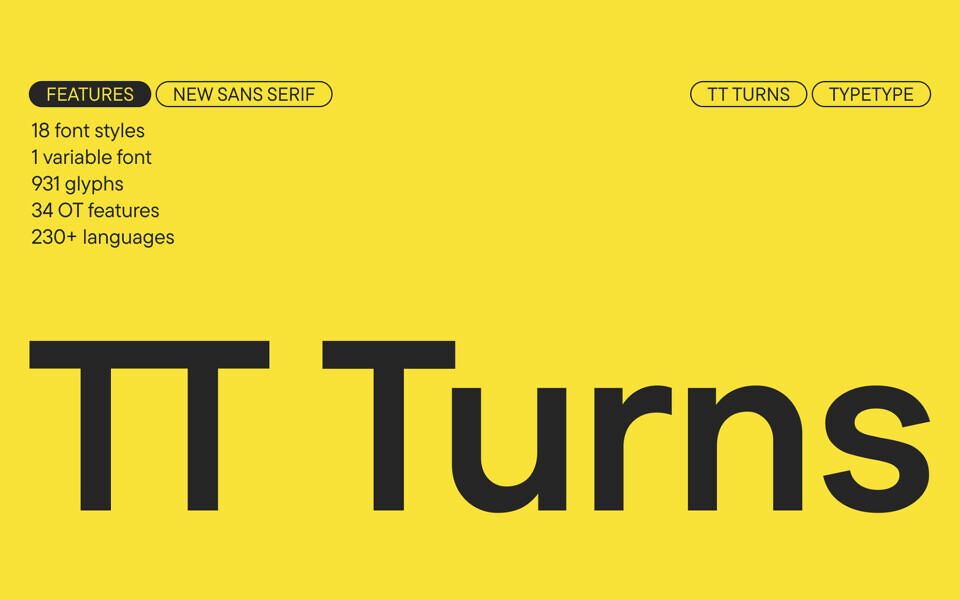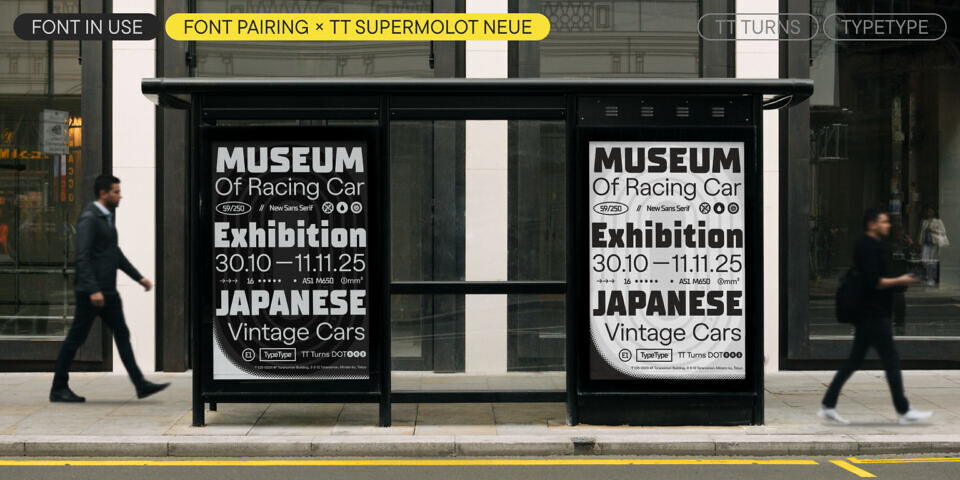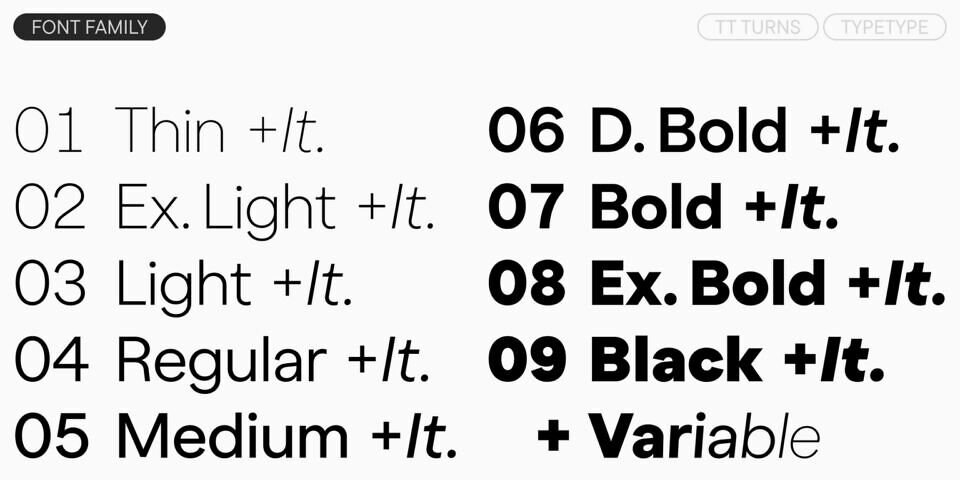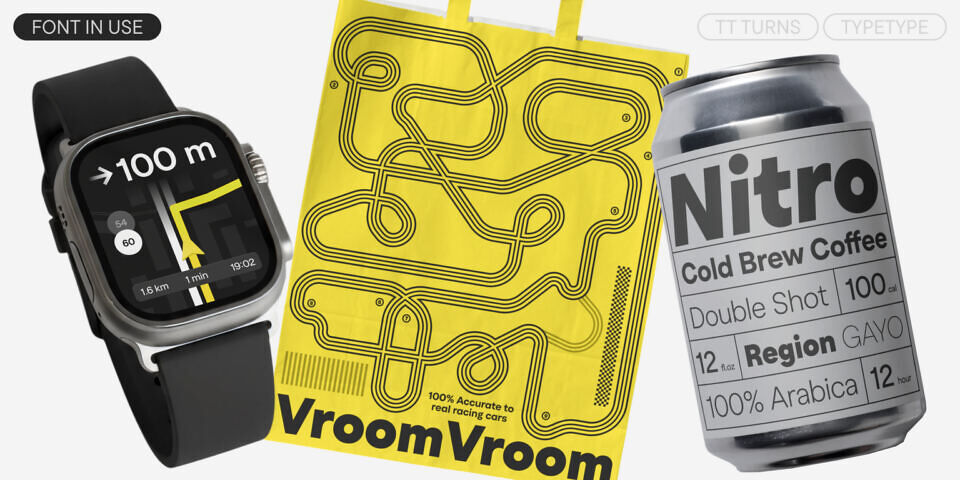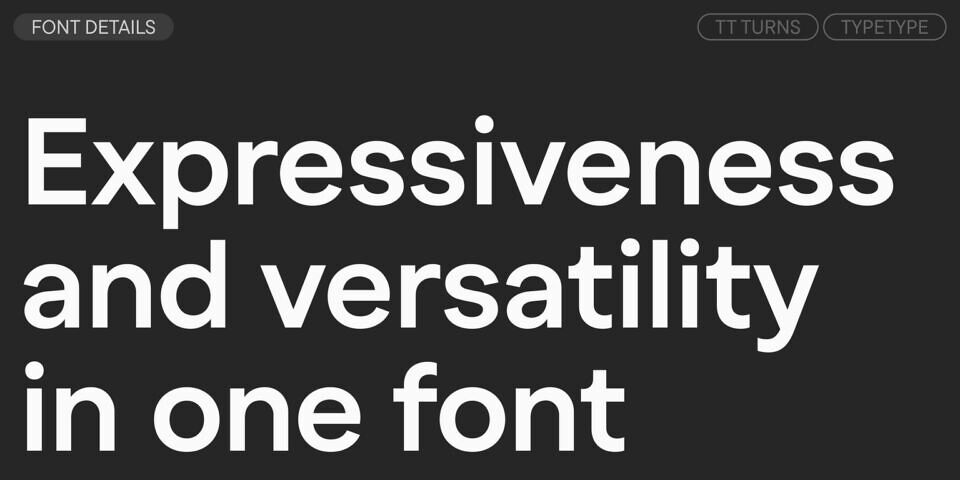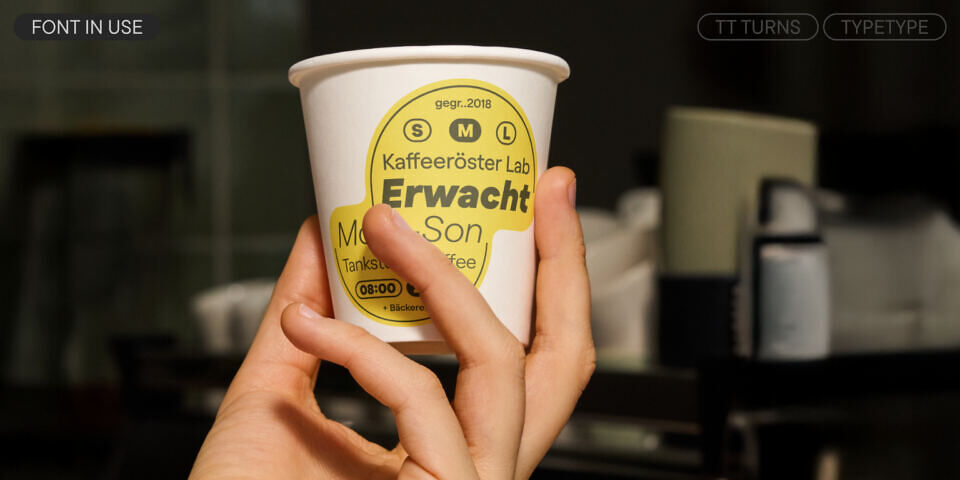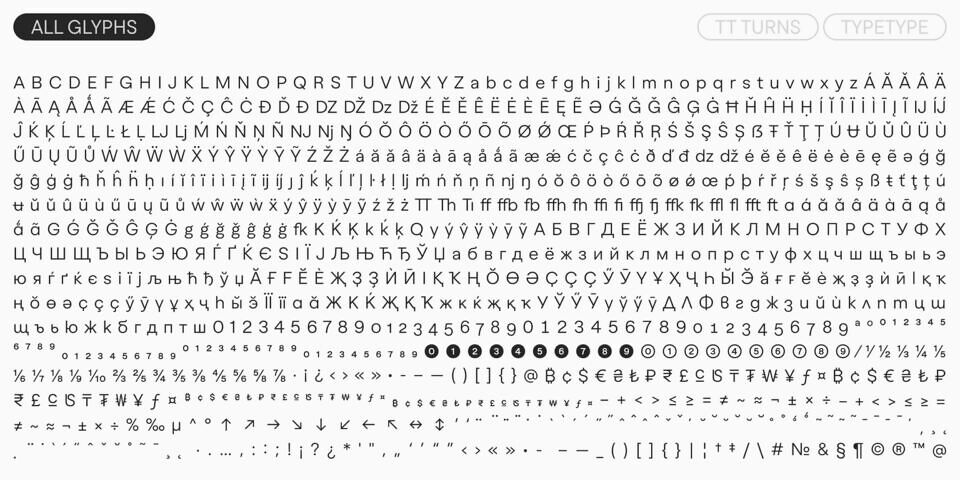
TT Turns is a geometric sans serif with distinctive rounded glyphs and expressive overhanging elements. This versatile font has a concise appearance and is highly readable at small sizes, while at large point sizes, it becomes a display font and reveals its character to the fullest. It’s energetic, strong, and dynamic—a quality that is especially evident in the italic font styles.
The font’s stylistic sets offer added visual flair, allowing for tweaks to letterforms like ‘a’ and ‘g’. It also features ligatures, OpenType features, and variable styles. This versatility makes it suitable for various tasks, from digital use to branding and packaging design, and can be effectively used in many fields.